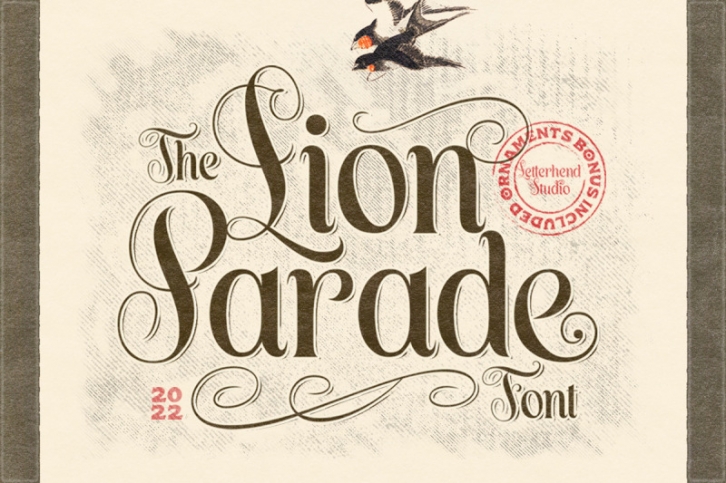
The Lion Parade Font is a unique and classic display font. It's a serif font with swashes! It comes with ornaments bonus so you can mix and match them. This font perfectly made to be applied especially in logo, and the other various formal forms such as invitations, labels, logos, magazines, books, greeting / wedding cards, packaging, fashion, make up, stationery, novels, labels or any type of advertising purpose.
• uppercase & lowercase
• numbers and punctuation
• multilingual
• ligatures
• alternates
• swashes
• bonus ornaments
• PUA encoded